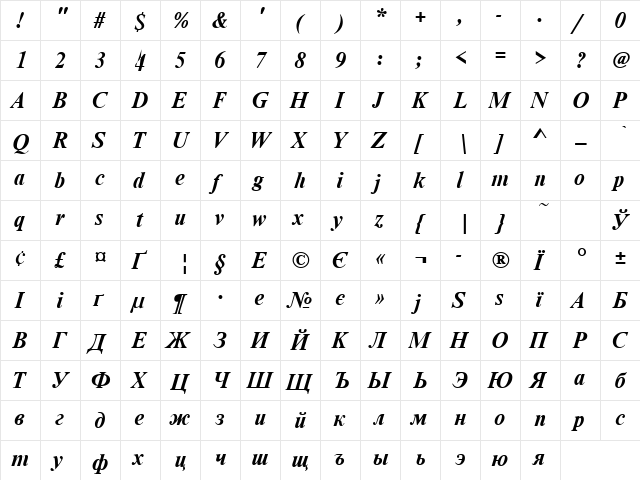
CyrillicEnglishTimesSSK BoldItalic Font Preview
Design Context for CyrillicEnglishTimesSSK Typeface
CyrillicEnglishTimesSSK takes a measured approach to typography — its balanced proportions and neutral character make it a reliable workhorse for both digital and print work. The dynamic lean of this cut emphasises speed and emphasis in any layout. The heavy weight commands attention and anchors typographic hierarchies.
Pro Tip: Try CyrillicEnglishTimesSSK for annotation and caption copy alongside an upright companion — the contrast in angle creates a dynamic but ordered typographic system.